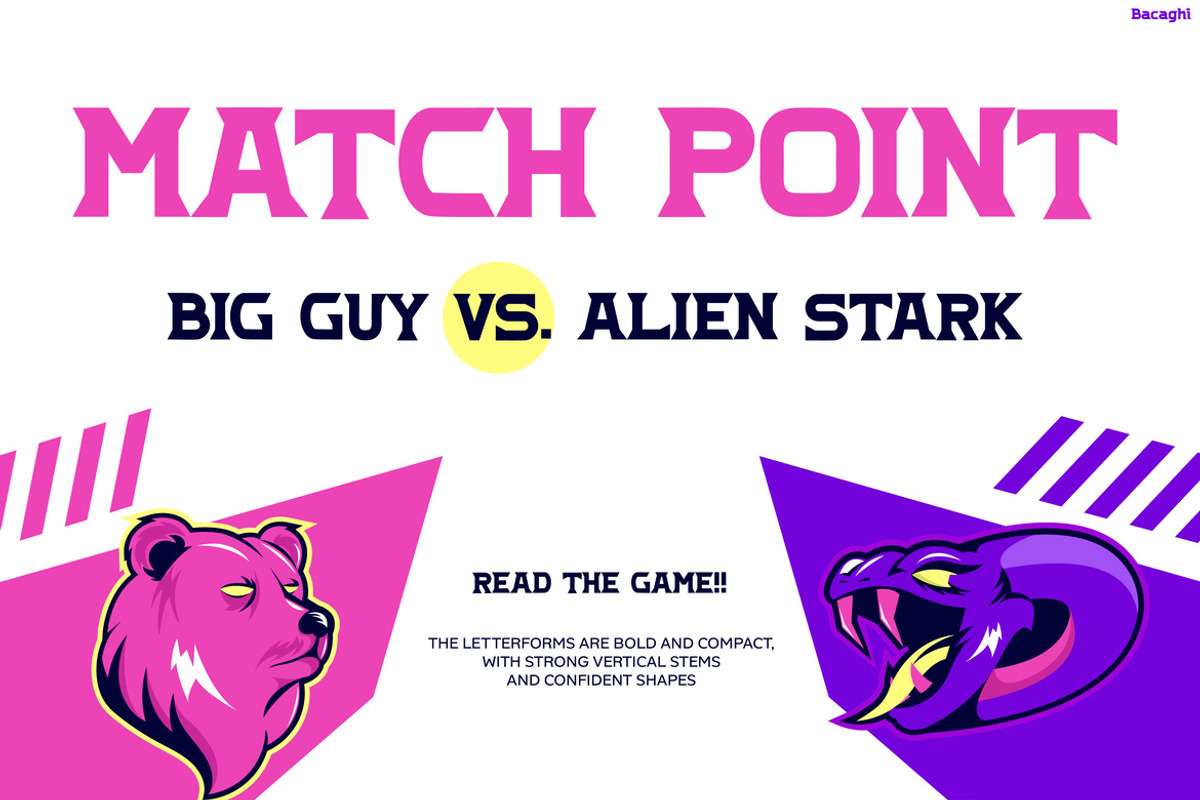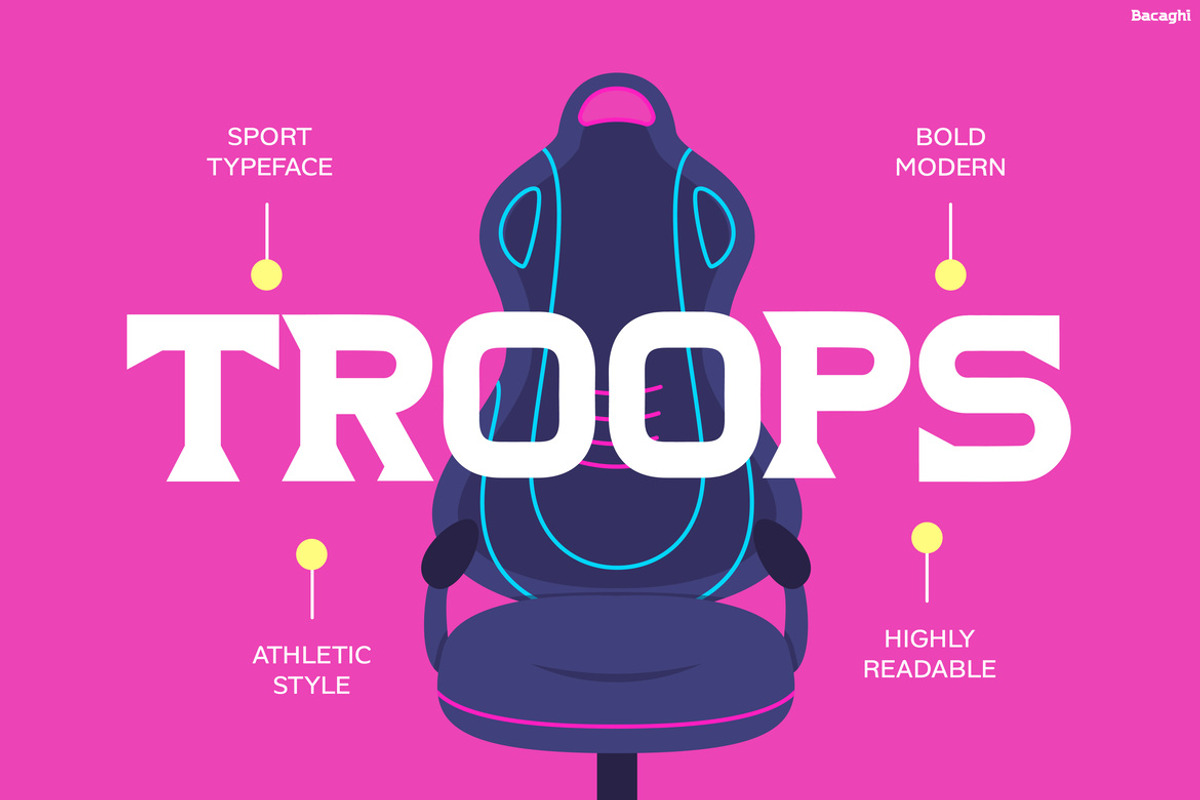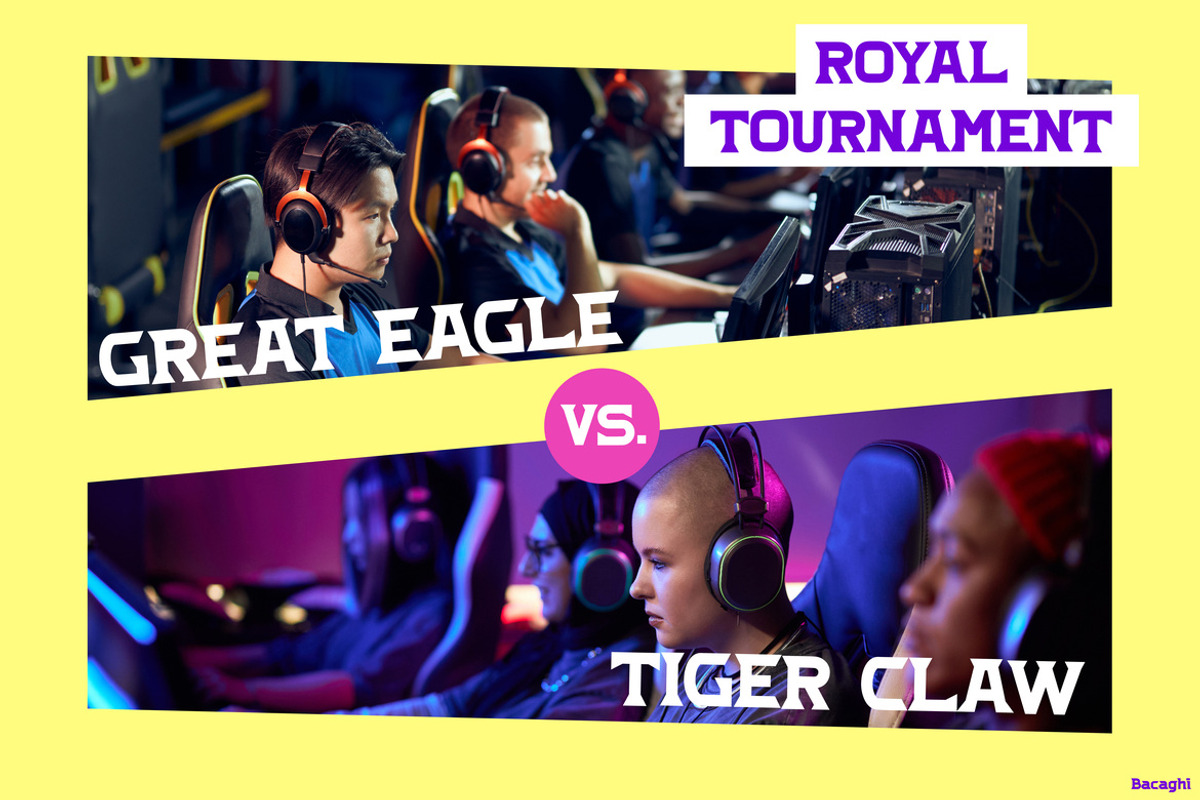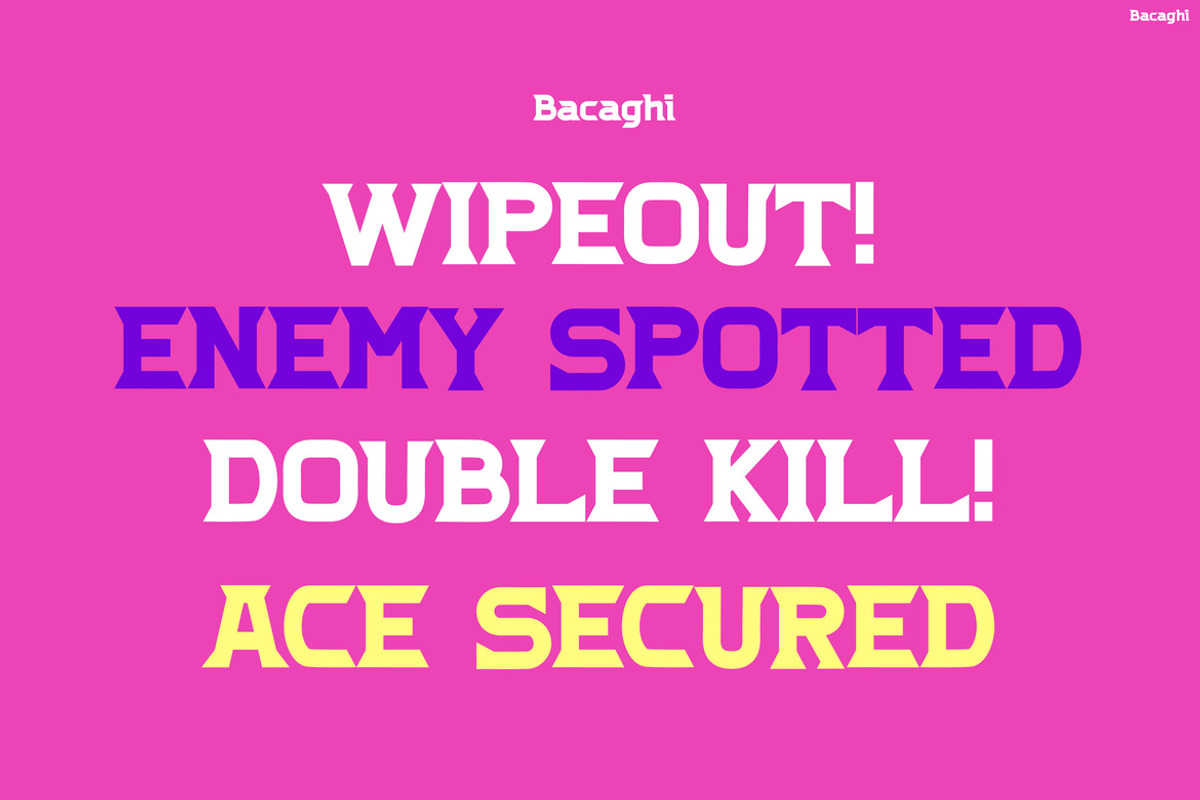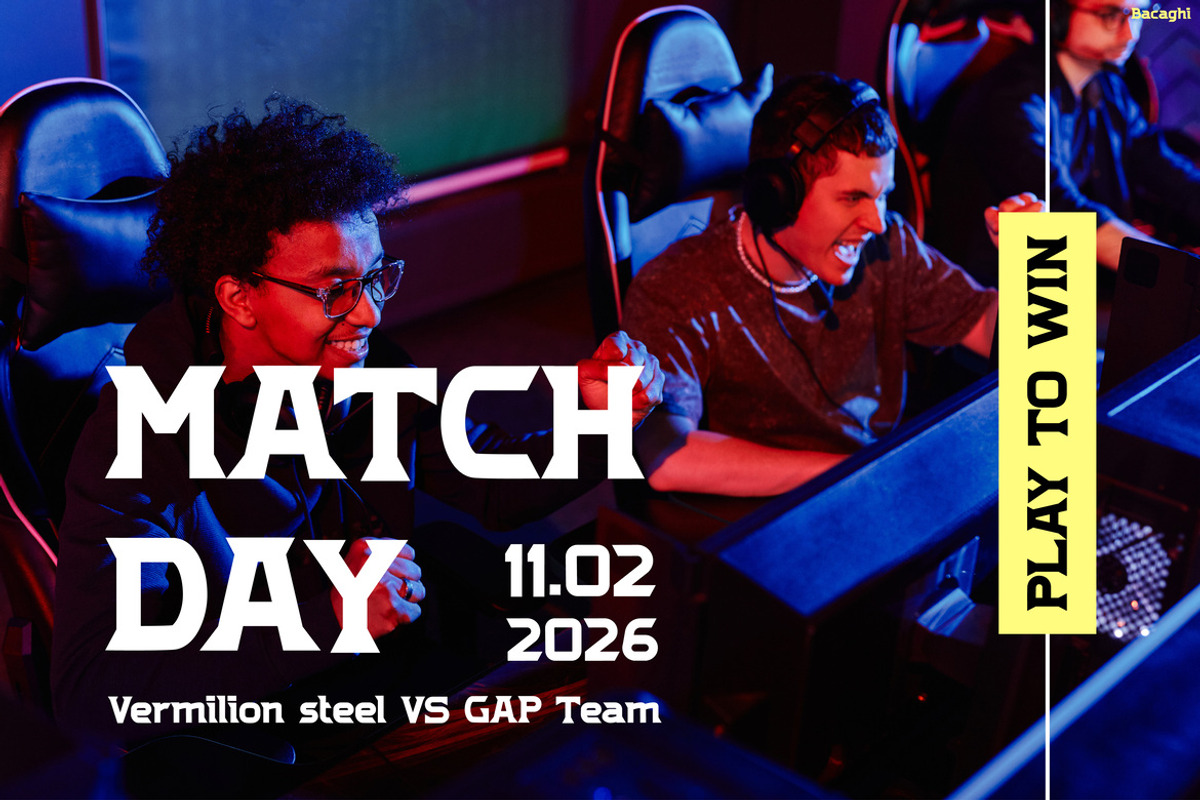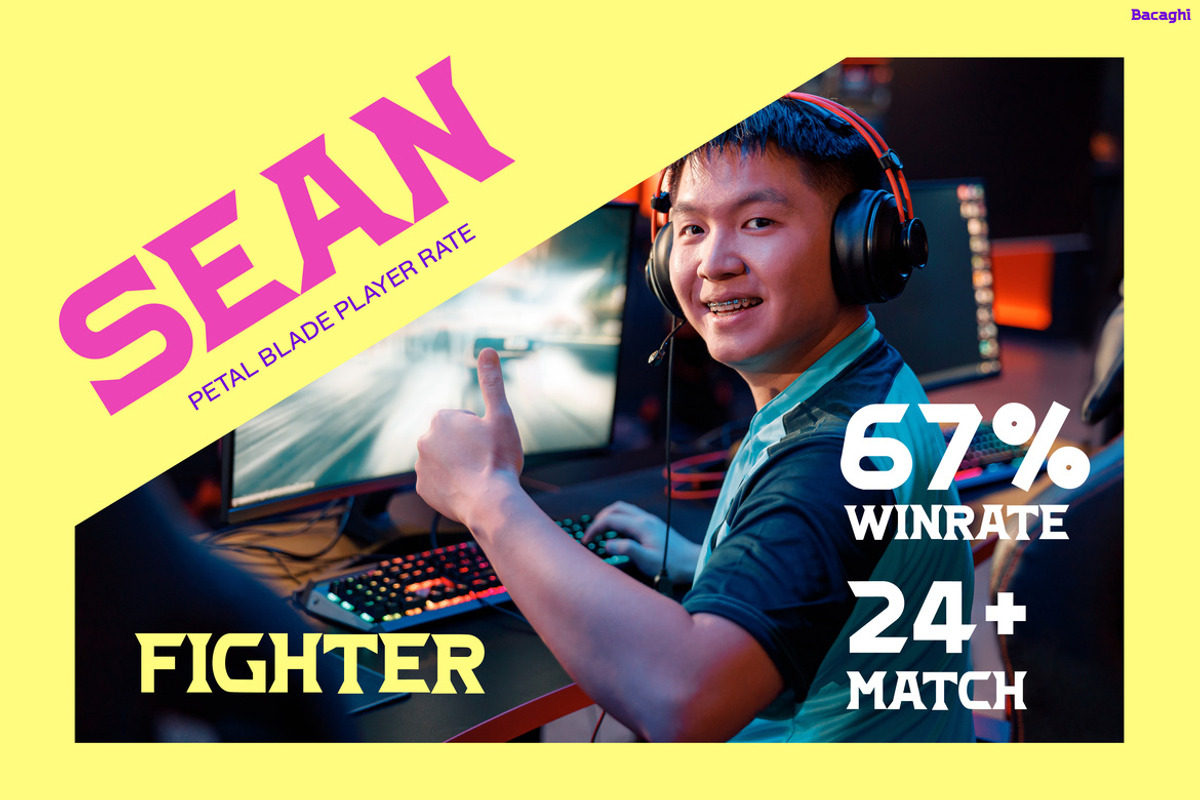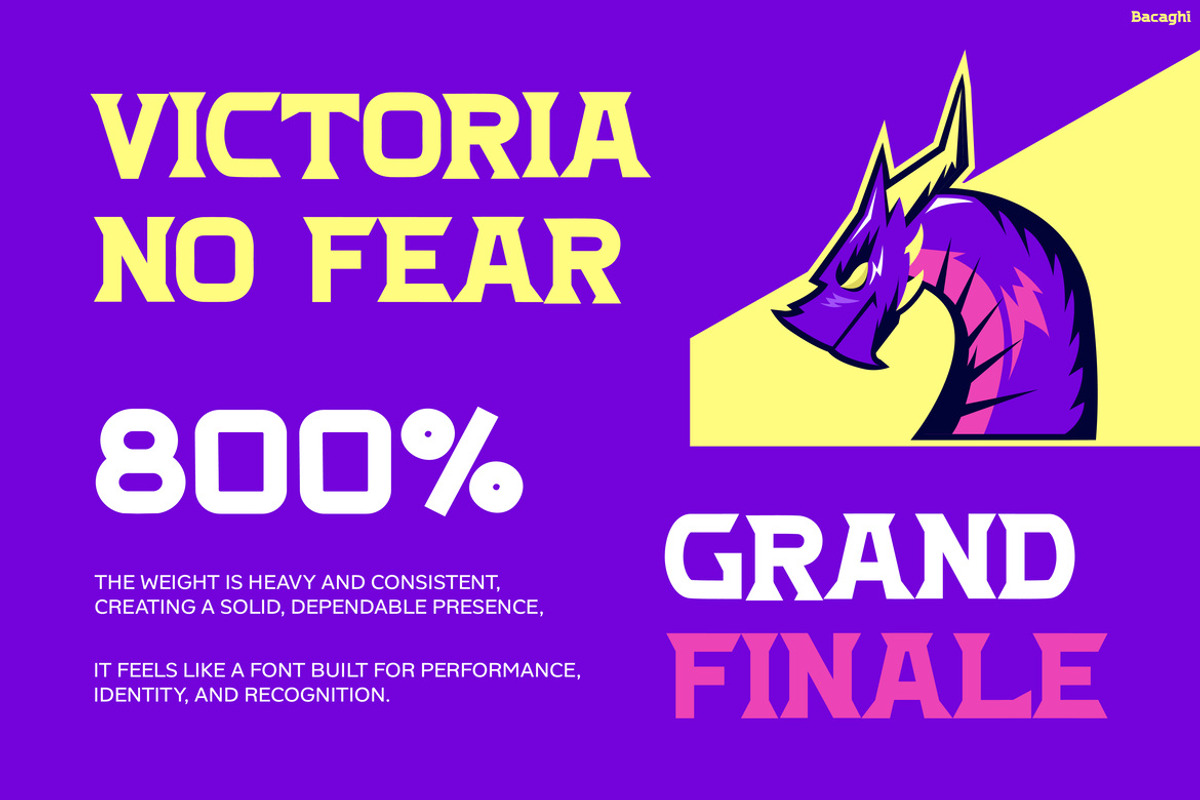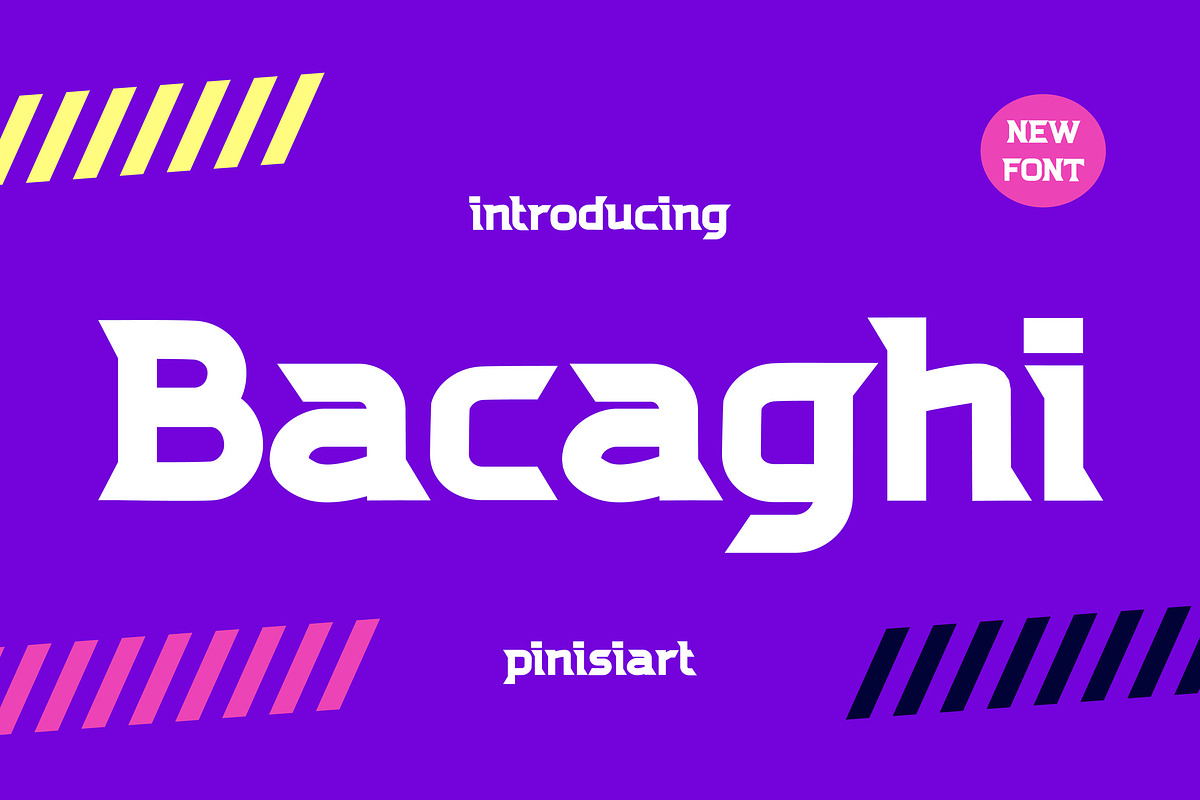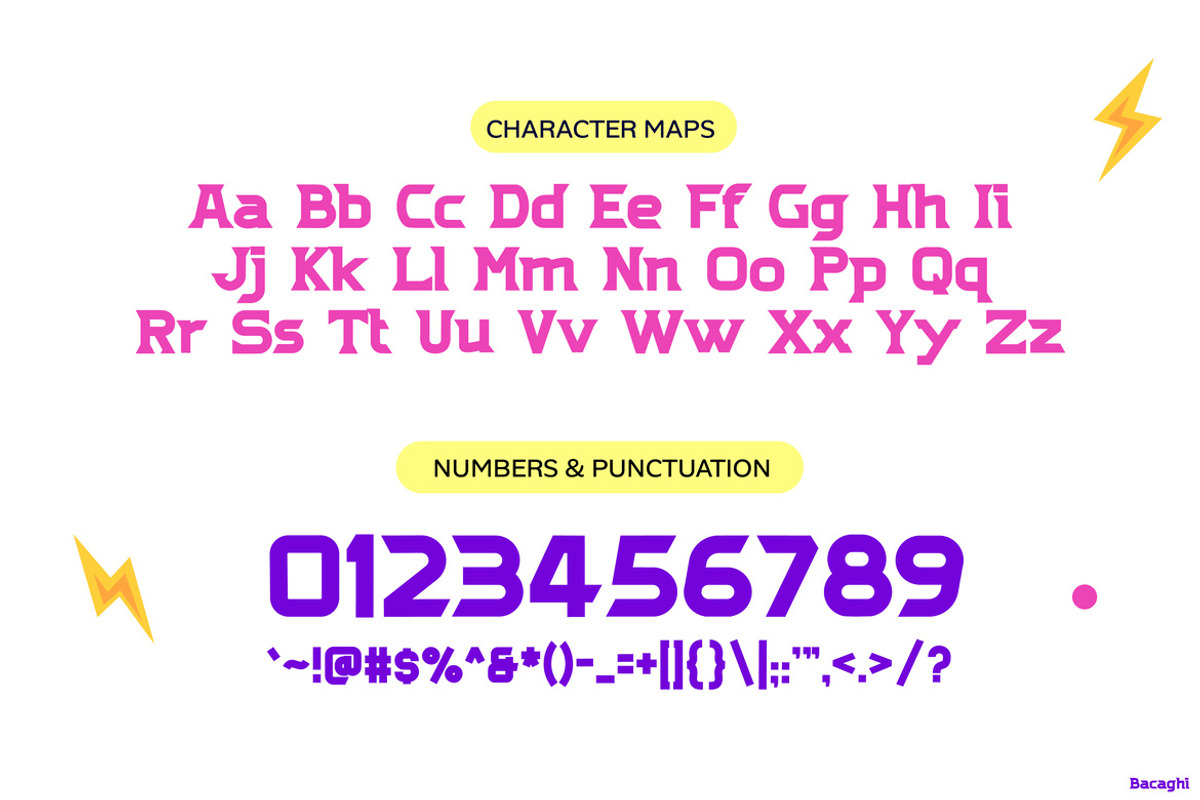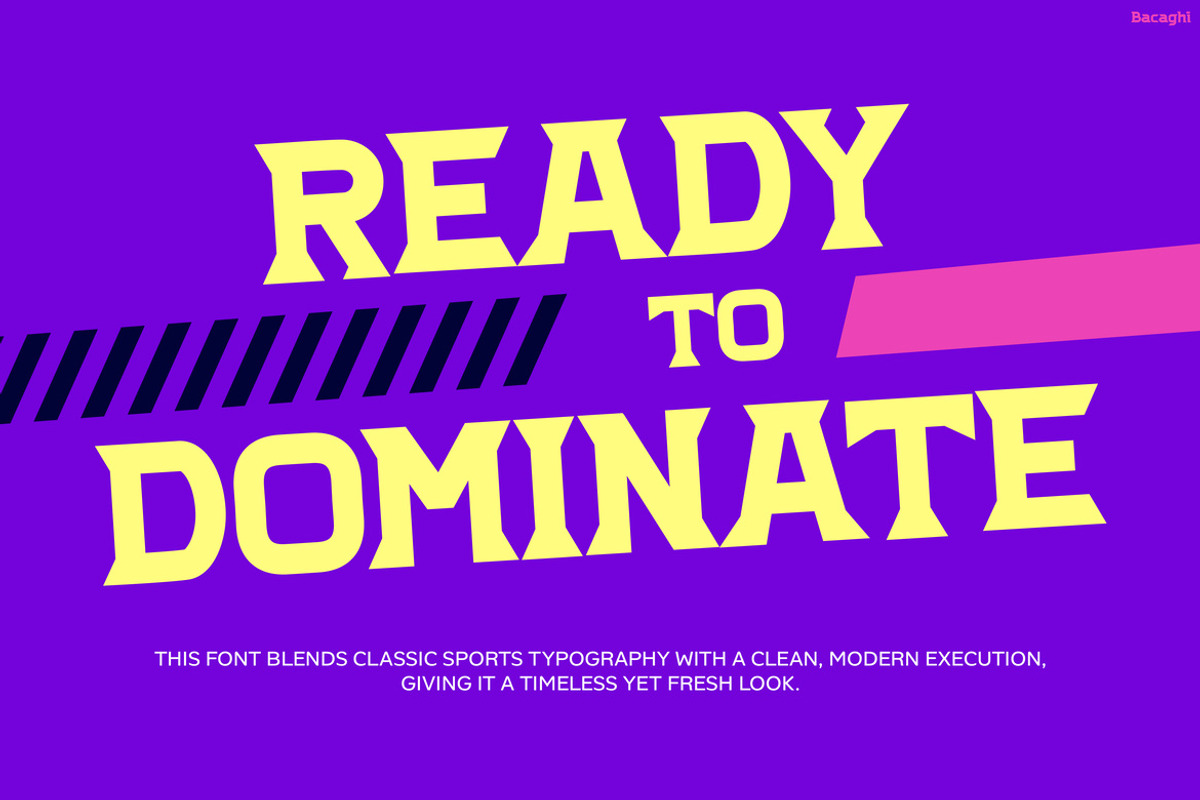
Bacaghi
Bacaghi – High-Energy Esports Font That Dominates
Sport Font Bacaghi is a bold and dynamic typeface built to deliver intense energy and competitive spirit. At first glance, its sharp angles and futuristic shapes create a powerful and aggressive visual style. Moreover, the strong geometric structure gives it a modern esports vibe that feels fast, loud, and impactful. Because of its striking design, every word instantly commands attention. In addition, its clean construction keeps it highly readable even in action-packed layouts. As a result, Bacaghi is perfect for designs that need to feel competitive, energetic, and full of adrenaline.
Sport Font Bacaghi is a high-impact display font designed for gaming, esports, and sports-themed projects. Not only does it feature bold and futuristic letterforms, but it also pairs perfectly with neon colors, digital graphics, and high-contrast layouts. Furthermore, its energetic style enhances visual hierarchy and creates a strong sense of motion. Therefore, whether you are creating tournament posters, team branding, or streaming content, Bacaghi adds a powerful and modern edge. Ultimately, it transforms simple text into competitive visuals that feel intense and exciting.